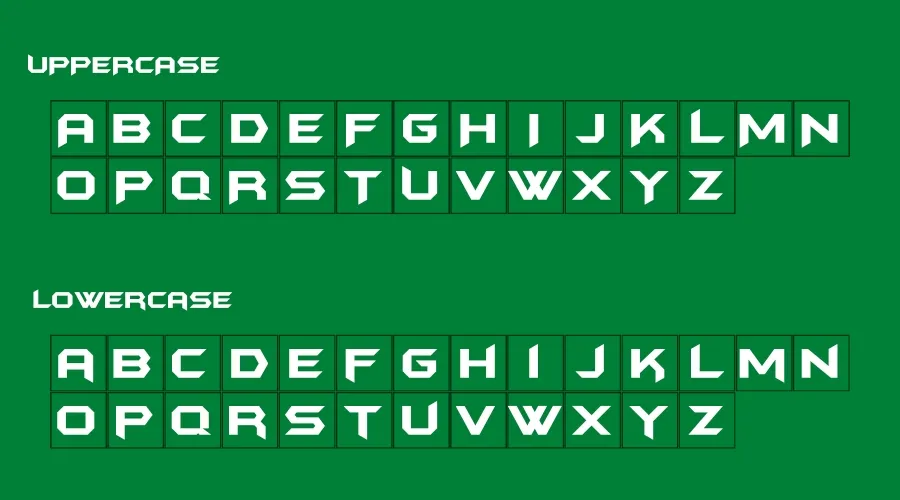
About Batman Forever Alternate Font
Batman Forever Alternate Font embodies typographic excellence through its masterful combination of sharp edges and brand distinction. Created for legal documents, this typeface delivers exceptional functionality and design innovation across all applications. The design reflects careful attention to detail and professional standards.
Advanced capabilities include distinctive expressive energy and versatile case-sensitive forms, giving designers creative control. When used in creative titles, Batman Forever Alternate Font exhibits remarkable file optimization. The harmonious balance between counter size and cultural relevance sets this typeface apart.